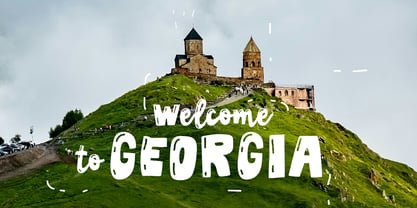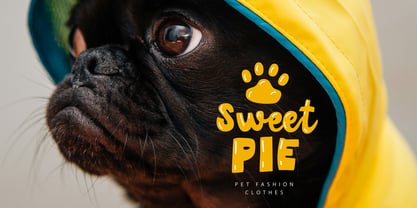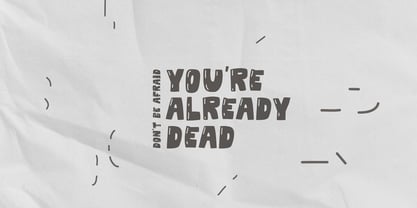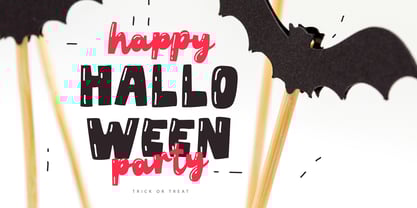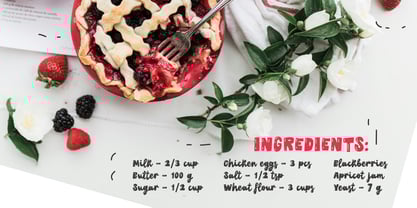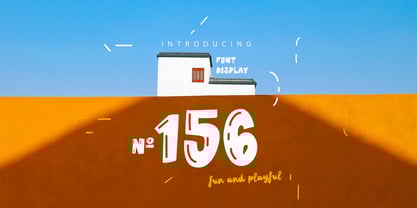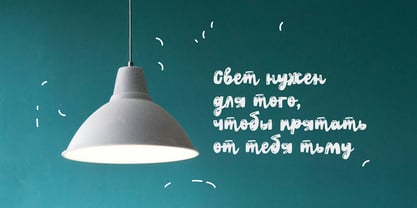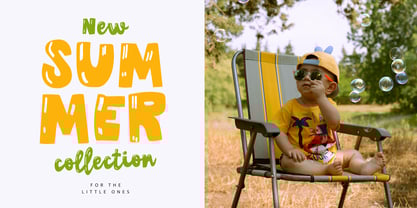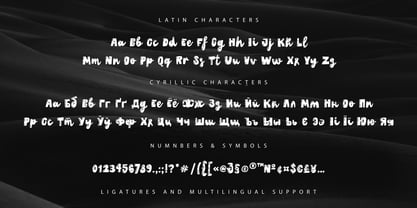
No. 156
by Chekart
The No. 156 Font Family was designed by Ekaterina Chernysheva and published by Chekart. No. 156 contains 1 styles.
Say hello to No.156 — a bold and bouncy display font full of fun, charm, and happy vibes! Its hand-drawn shapes and quirky letters make every word look friendly and full of character. Perfect for kids projects, summer designs, party invitations, packaging, and playful branding. Whether you're creating a Halloween poster, a kids’ apparel label, or a cheerful social media quote, No.156 adds personality, joy, and warmth to your design.
No. 156
About Chekart
Chekart is a creative design studio located on the beautiful Issyk-Kul Lake in Kyrgyzstan. It was founded by the amazing designer Ekaterina Chernysheva from a small town in the north of Russia. We love to draw illustrations and create unusual fonts. Creativity is our life. We hope you will love our products.